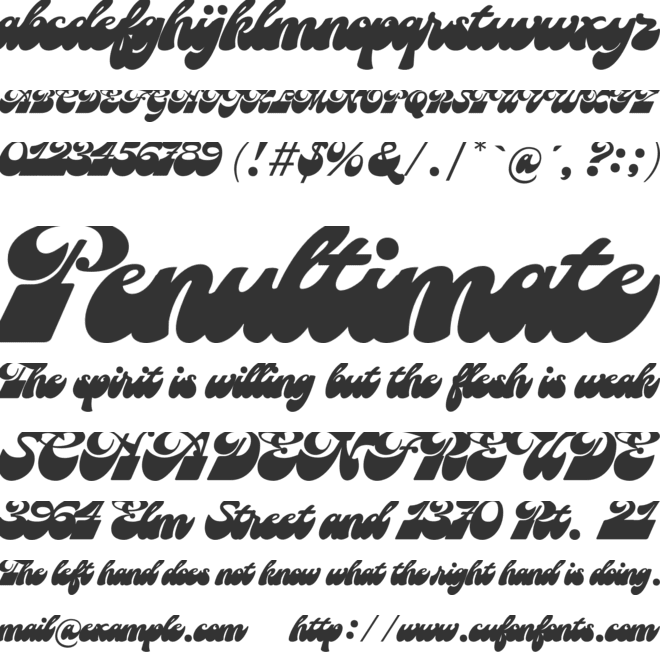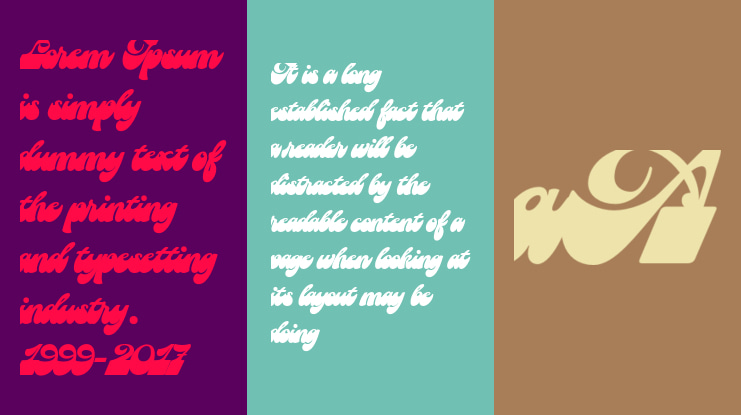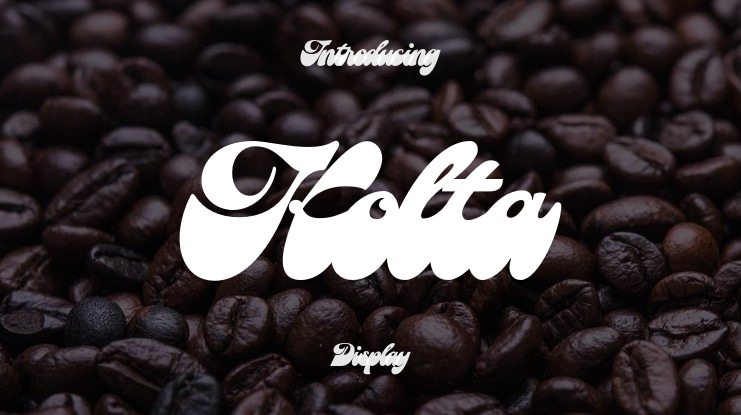
Kolta is a bold chunky script font with a fun, groovy, and trendy
personality. Designed with thick strokes, playful curves, and a unique
bottom-heavy style, Kolta combines strength and charm in every
letter. Perfect for branding logos, retro packaging, music or festival
posters, and social media content, this font delivers energy and
confidence. With 372 glyphs, multilingual support, and versatile